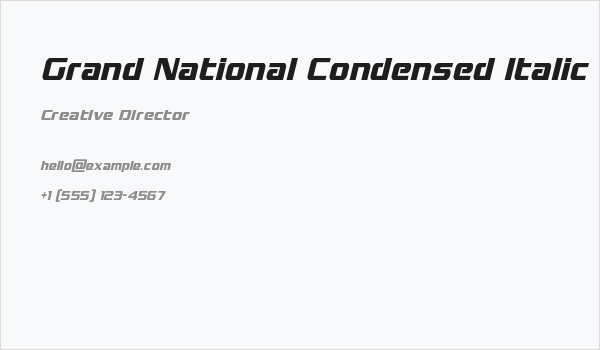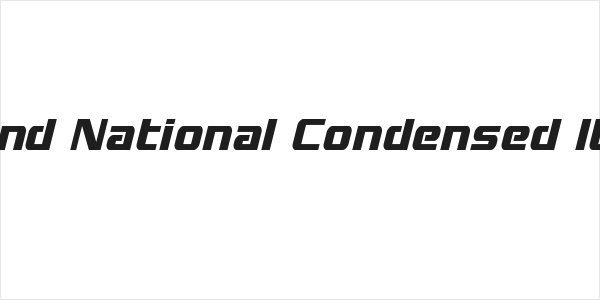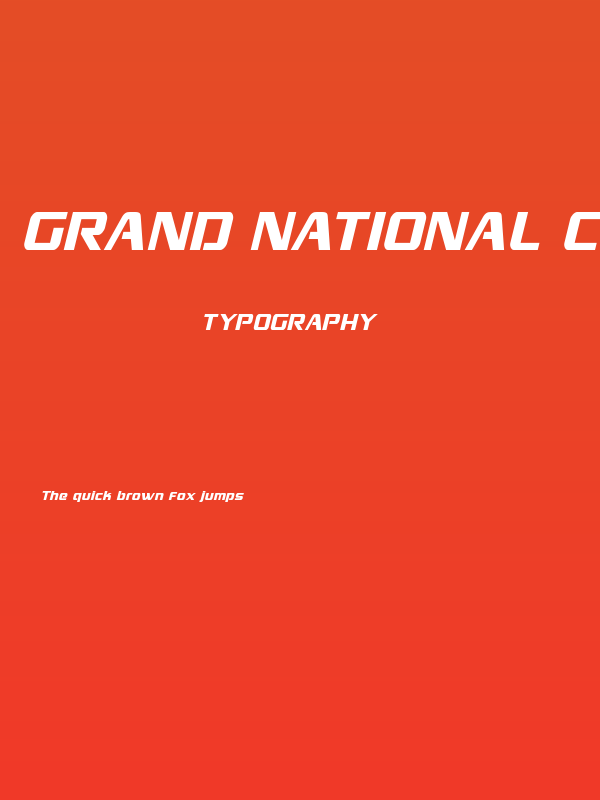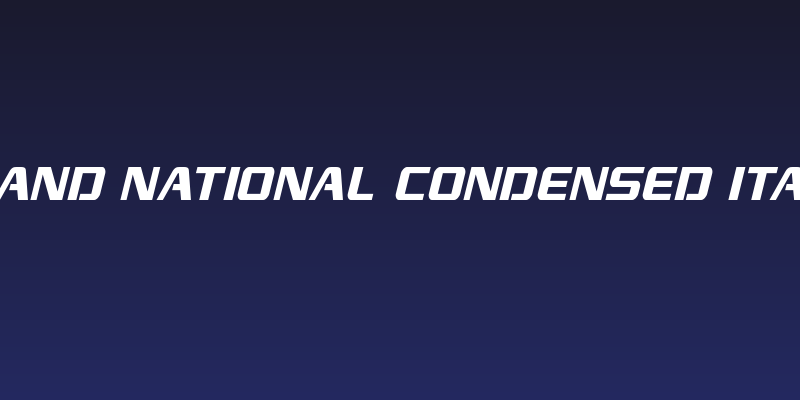
Grand National Condensed Italic Font
Grand National Condensed Italic Description
This font features a dynamic and modern design with a condensed and italicized style. The characters are sleek and angular, giving a sense of speed and movement. The uppercase letters are bold and commanding, while the lowercase letters maintain a consistent flow. The numerals are distinct and easily readable, and the special characters complement the overall aesthetic. The font's condensed nature allows for efficient use of space, making it suitable for various design applications where space is limited but impact is essential.